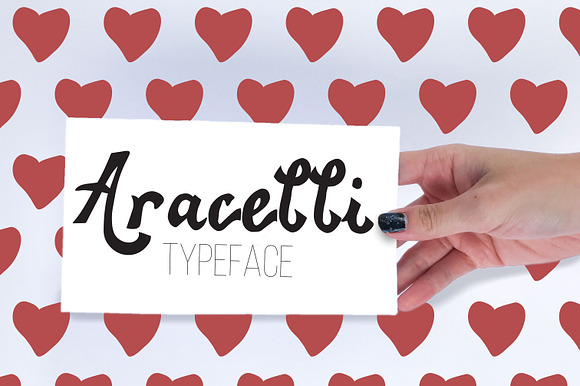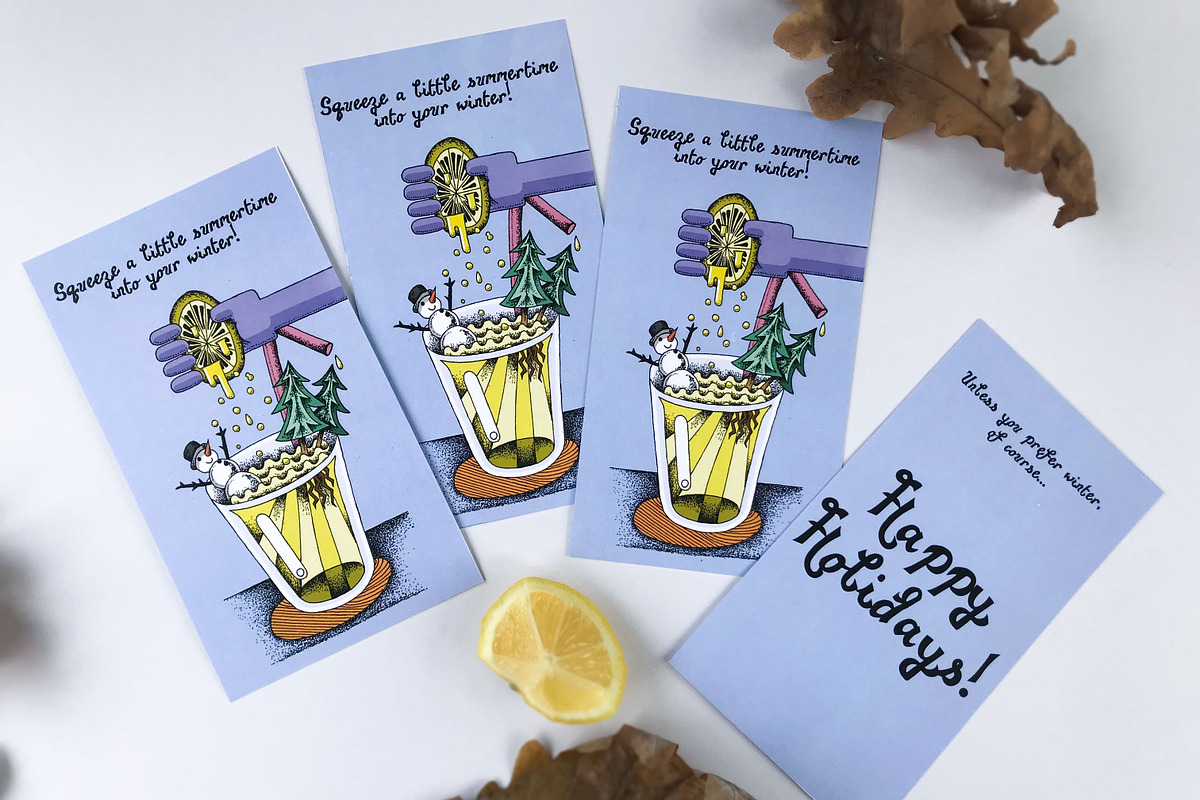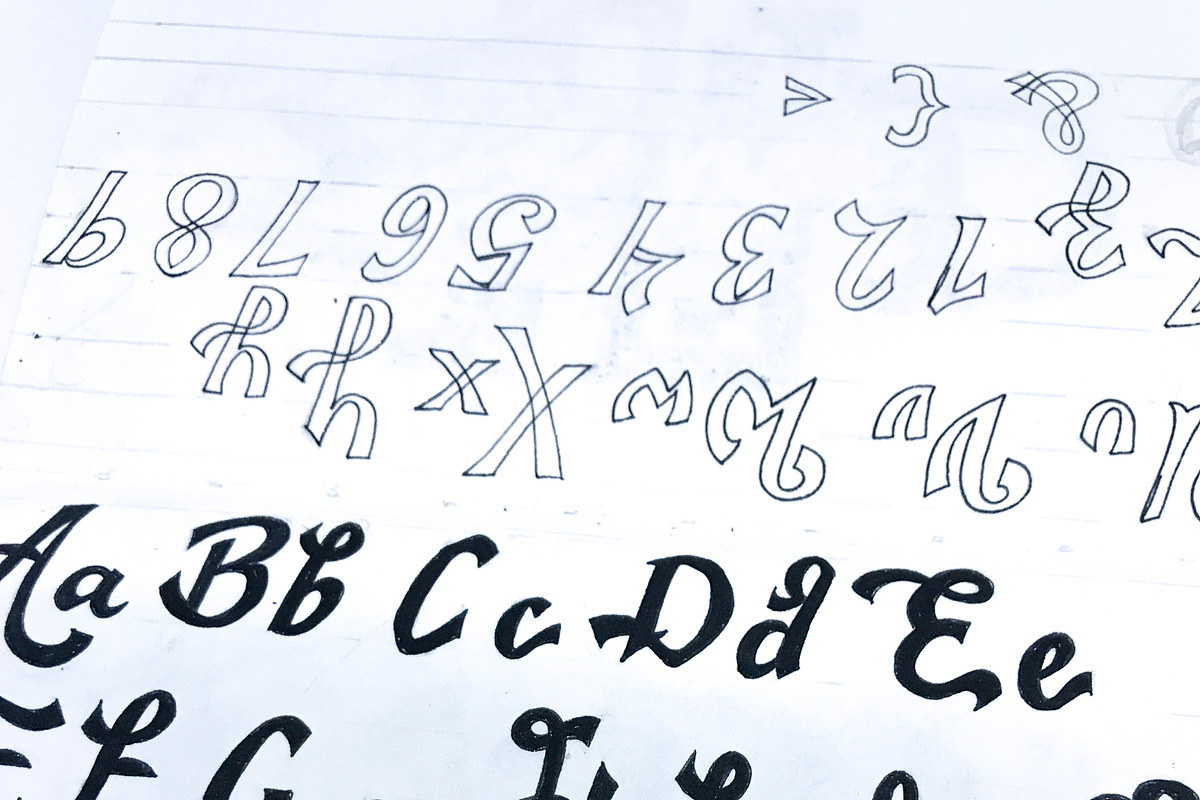
Aracelli: Hand-lettered Typeface
A unique, hand-lettered typeface with cursive and black-letter elements. Adds a lighthearted, creative flare to any project - especially cards! Greeting cards, posters, Valentine's Day Cards, Christmas/Holiday Cards - you name it! It is currently in use on one of my Christmas card designs, which you can grab at: